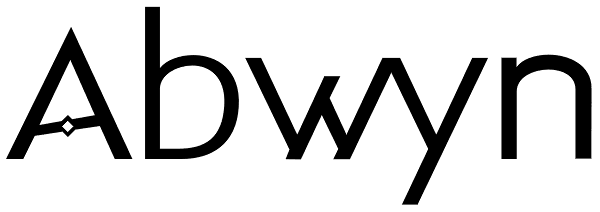
Abwyn
Abwyn is a sparkly Art Deco construction. The little diamonds in the vertical strokes add a lightness that is very pleasing to the eye in display sizes: Lower case numbers, Euro, ballot box in the section slot.